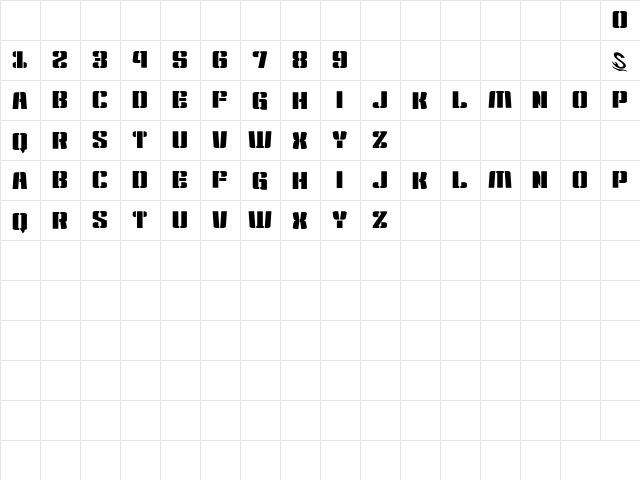
Kensuco Stencil__G Regular
Design Context for Kensuco Stencil__G Typeface
Kensuco Stencil__G borrows the utilitarian aesthetic of stencil lettering, with its characteristic cutaways and no-frills construction lending an industrial edge.
Ideal for industrial branding, streetwear, military-adjacent aesthetics, and urban signage projects.
Pro Tip: Pair Kensuco Stencil__G with raw, utilitarian design elements — exposed concrete textures, flat colour, and minimal ornamentation suit it well.